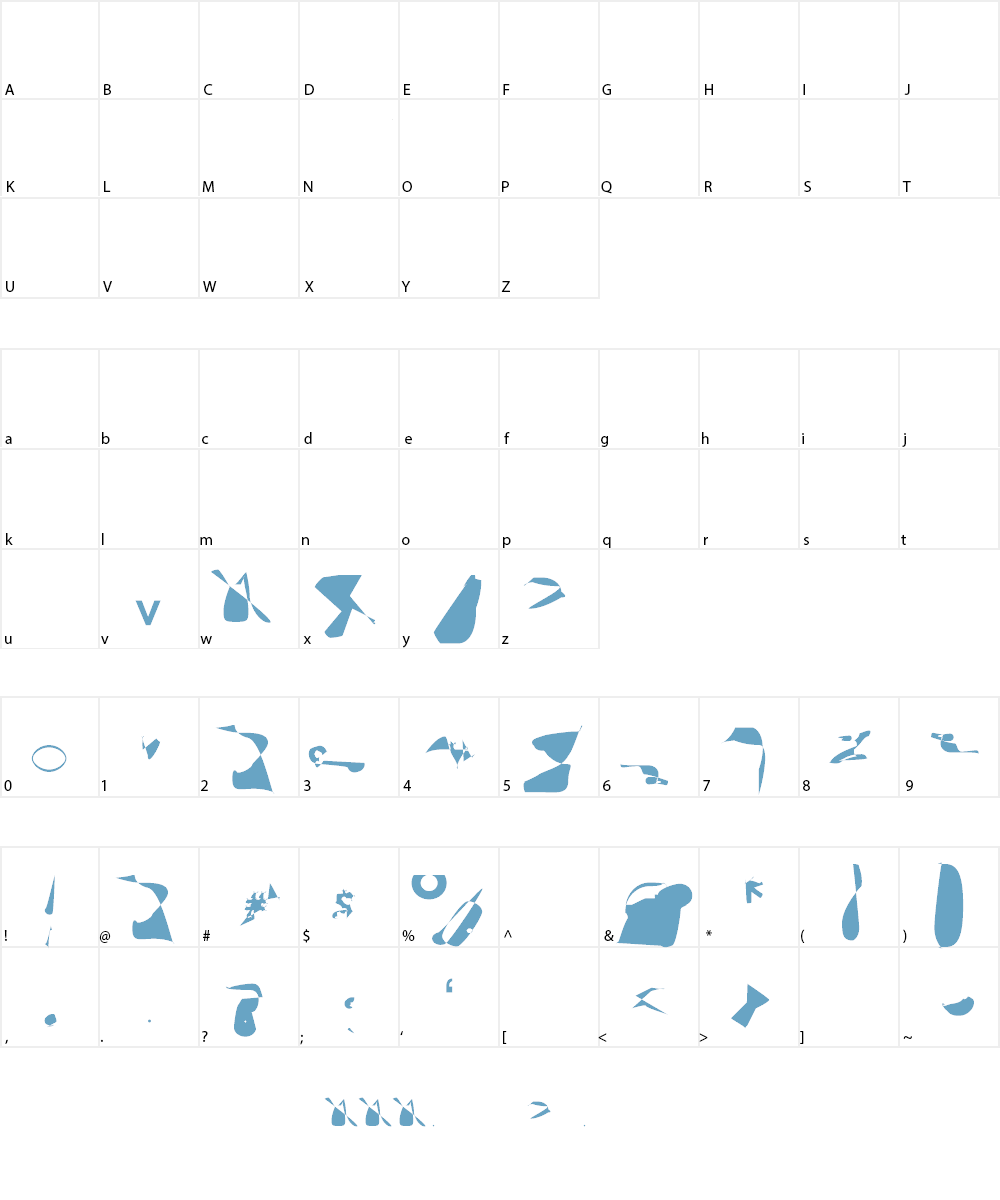
Mew Too co-designed this font. This font is not an endorsement of any political movement or party, we just named it Anarchic type because that is how the font looked to us when we designed it.